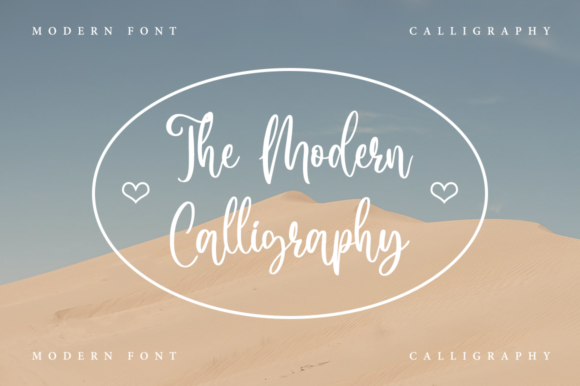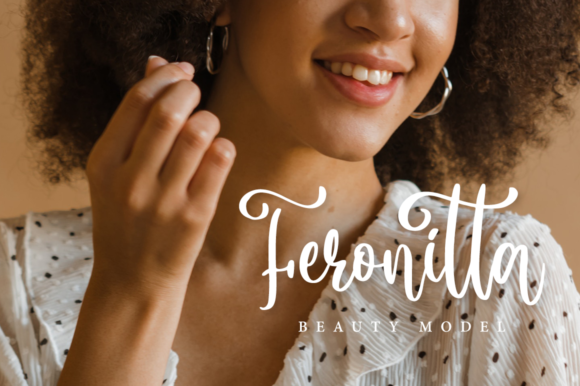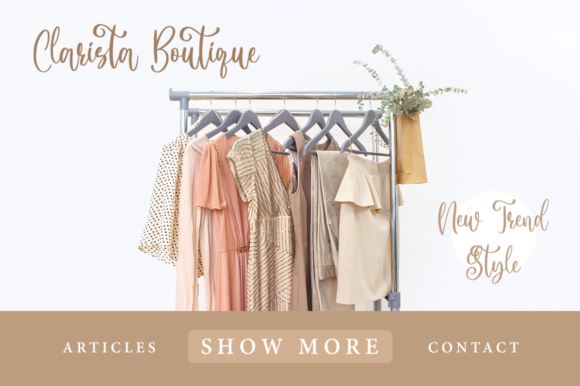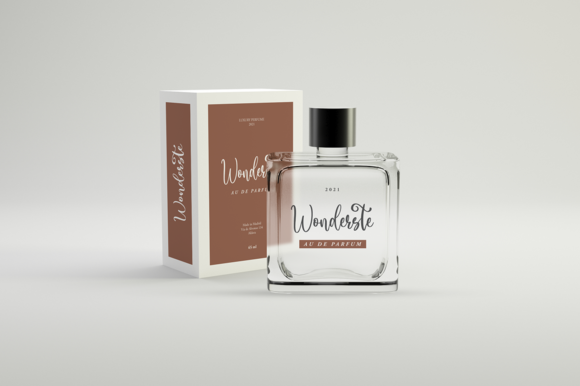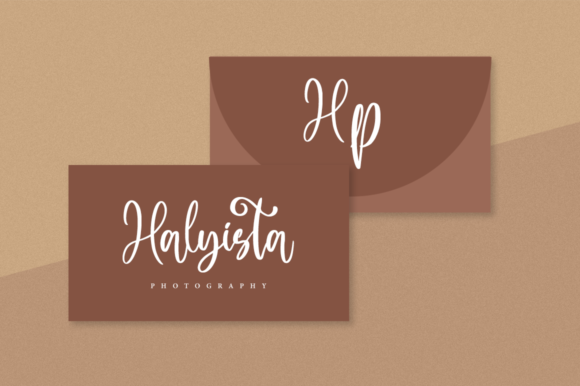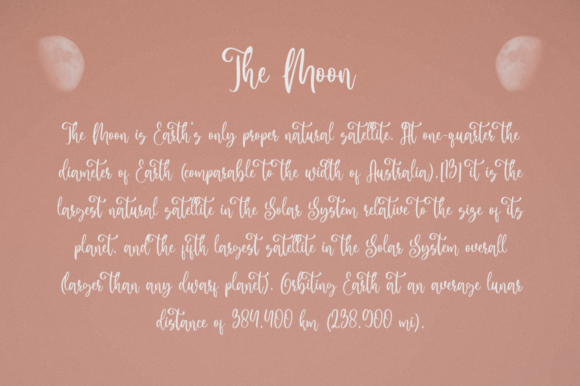
Introduction to Siluetta Font
Siluetta is a delicate and elegant handwritten font.
Its distinct and well-rounded letters make this font a masterpiece Fall in love with its incredibly versatile style and use it to create spectacular designs.